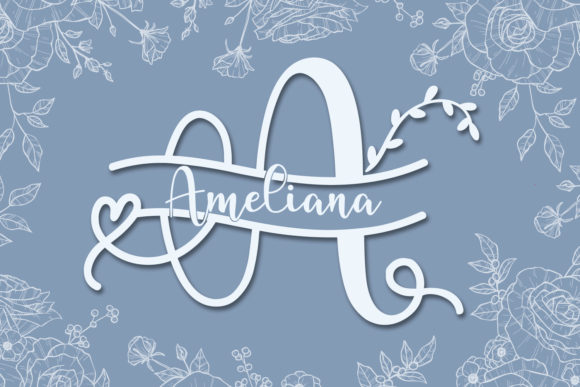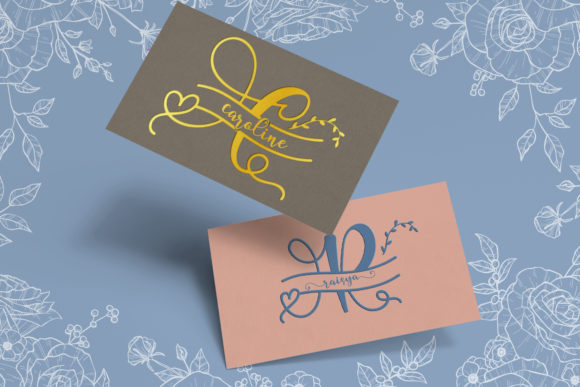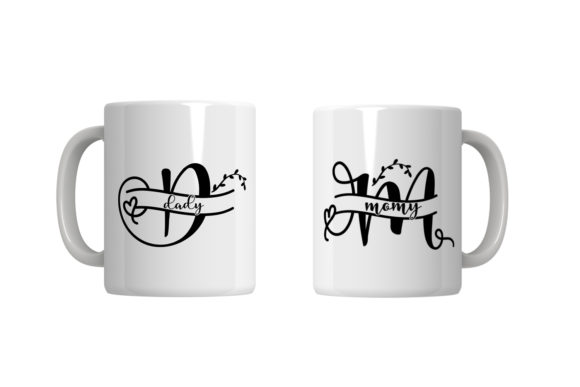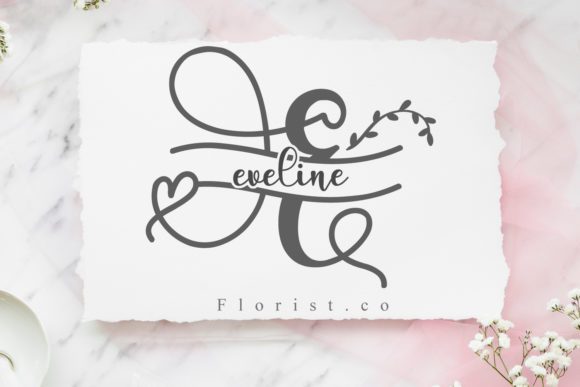
Ameliana Monogram Font
About the Ameliana Monogram Font
Meet Ameliana Monogram Font, a stunning font that brings a touch of elegance and professionalism to any design. Ameliana Monogram is a sweet decorative font. Fall in love with its authentic feel and use it to create gorgeous wedding invitations, beautiful stationary art, eye-catching social media posts, and cute greeting cards.
Ameliana Monogram’s playful, yet elegant, personality makes it ideal for branding projects requiring a touch of vintage charm, particularly logos, short taglines, and social media graphics. It also works well on wedding stationery, packaging for artisanal products, and short-form editorial design. However, its decorative nature makes it less suitable for body text or UI elements where readability is paramount. Avoid using it for large blocks of text.
Pairing Ameliana Monogram effectively requires a contrasting yet complementary typeface. Consider a clean sans-serif like Lato or Montserrat for body copy to balance its ornate forms. For a more sophisticated pairing, a classic serif such as Garamond or Playfair Display would add a touch of refined elegance.
The font’s overall mood is romantic and slightly whimsical, best suited for brands projecting femininity, craftsmanship, or a vintage aesthetic. Avoid using it for projects requiring a modern, minimalist, or serious tone.
Ameliana Monogram Font Usage Examples
Ameliana Monogram Font Example